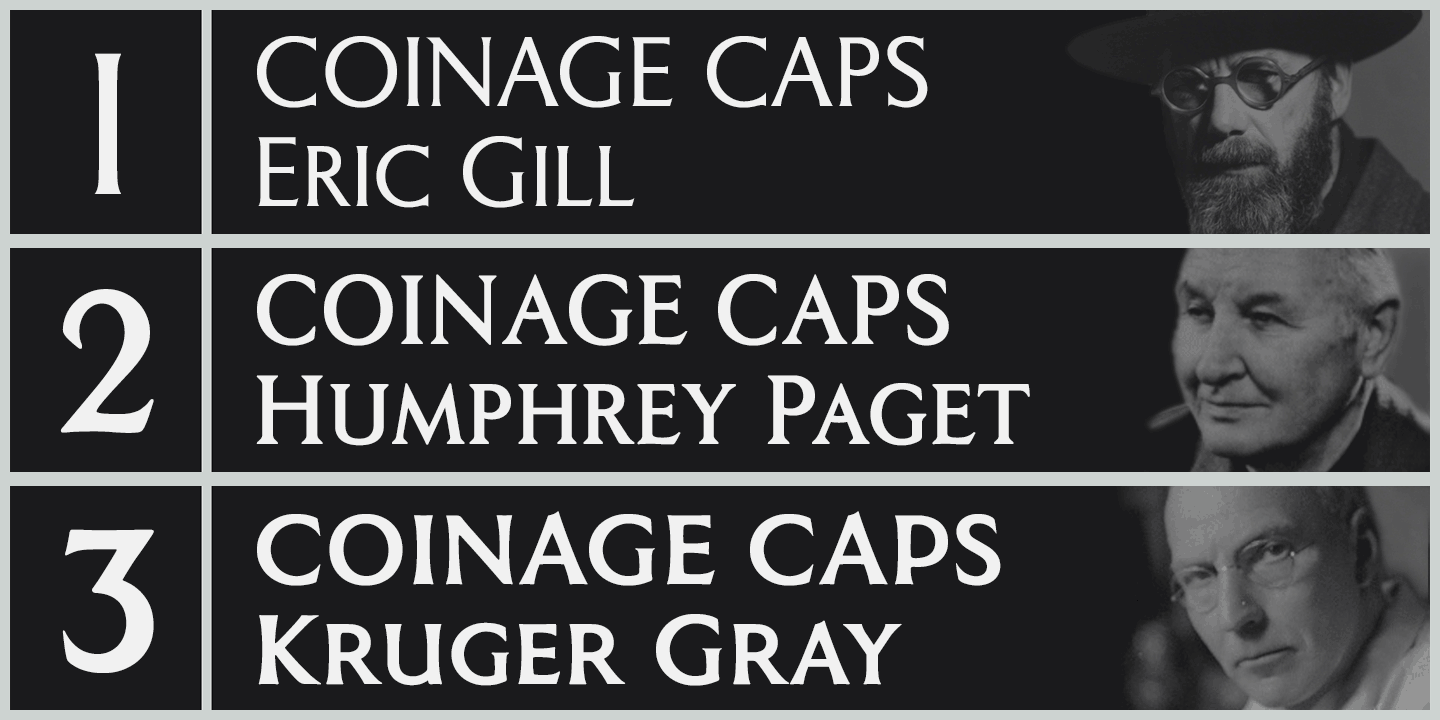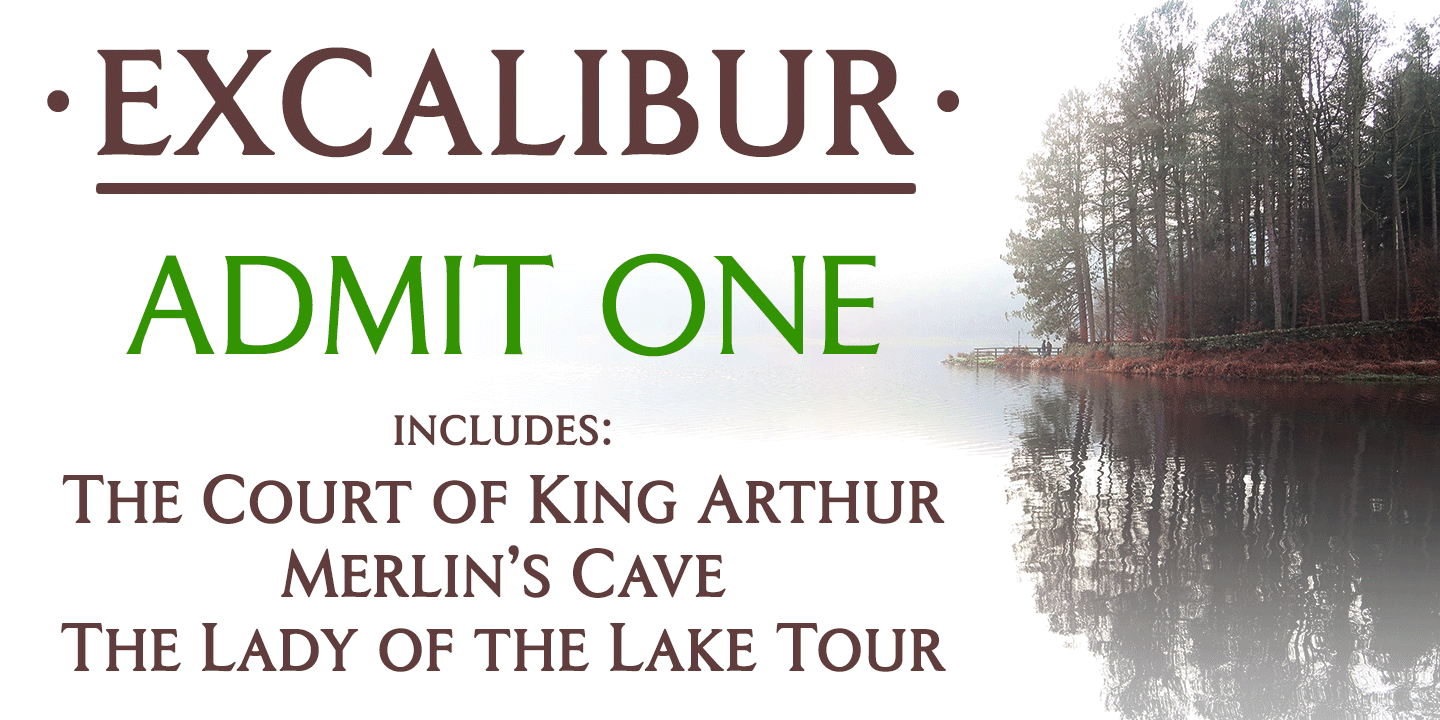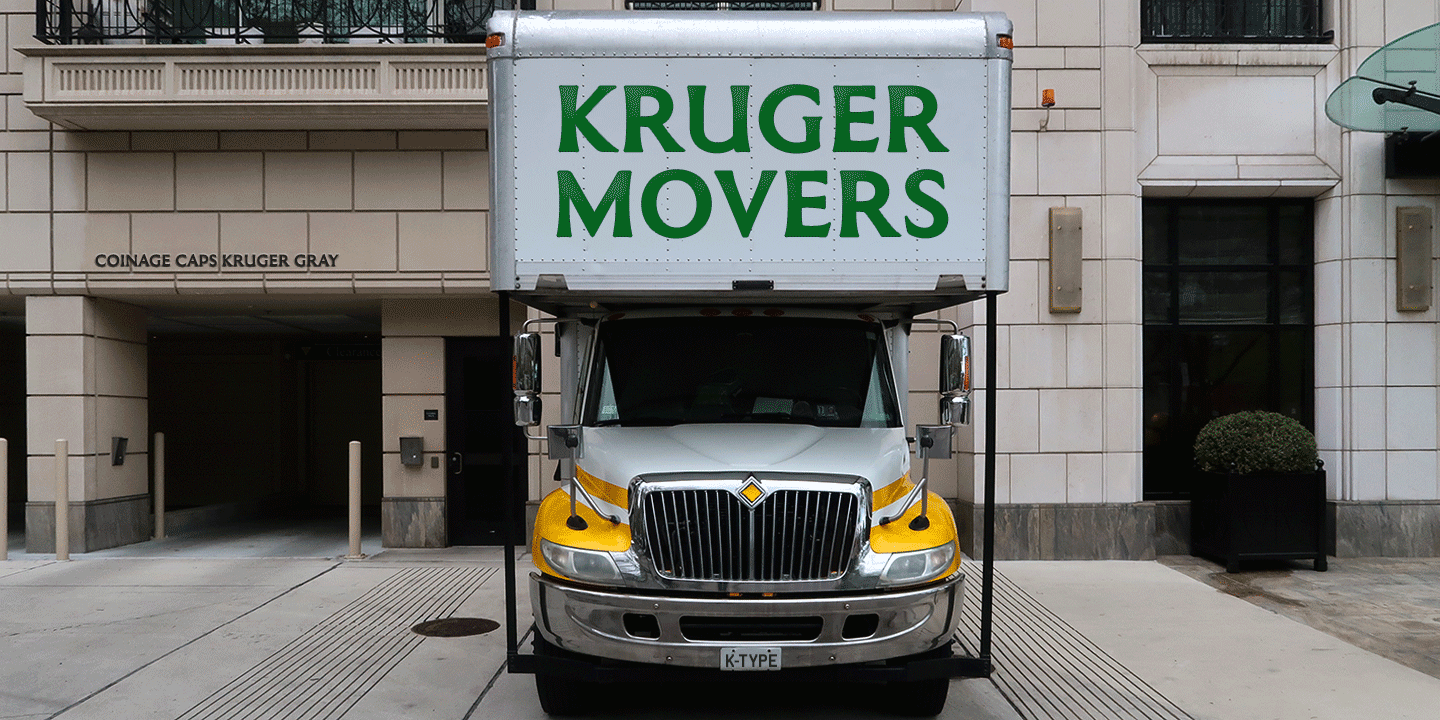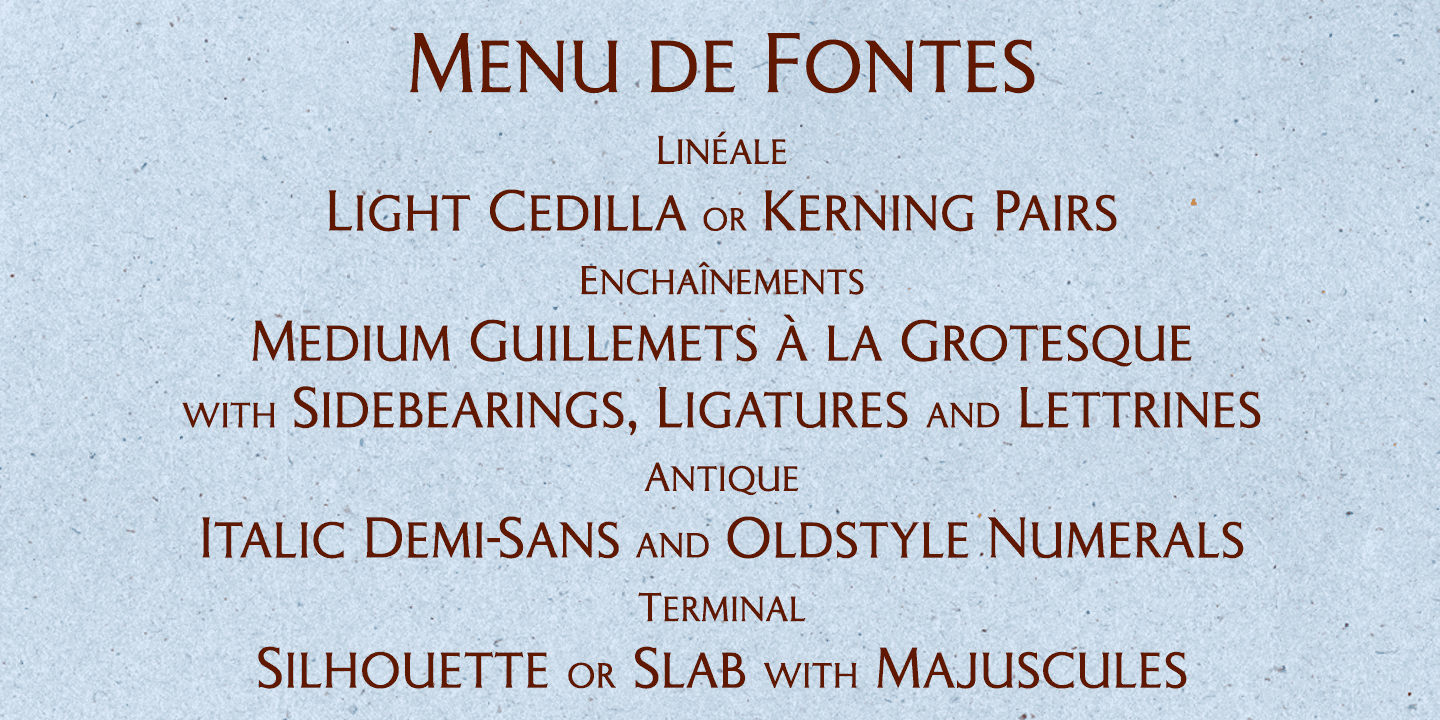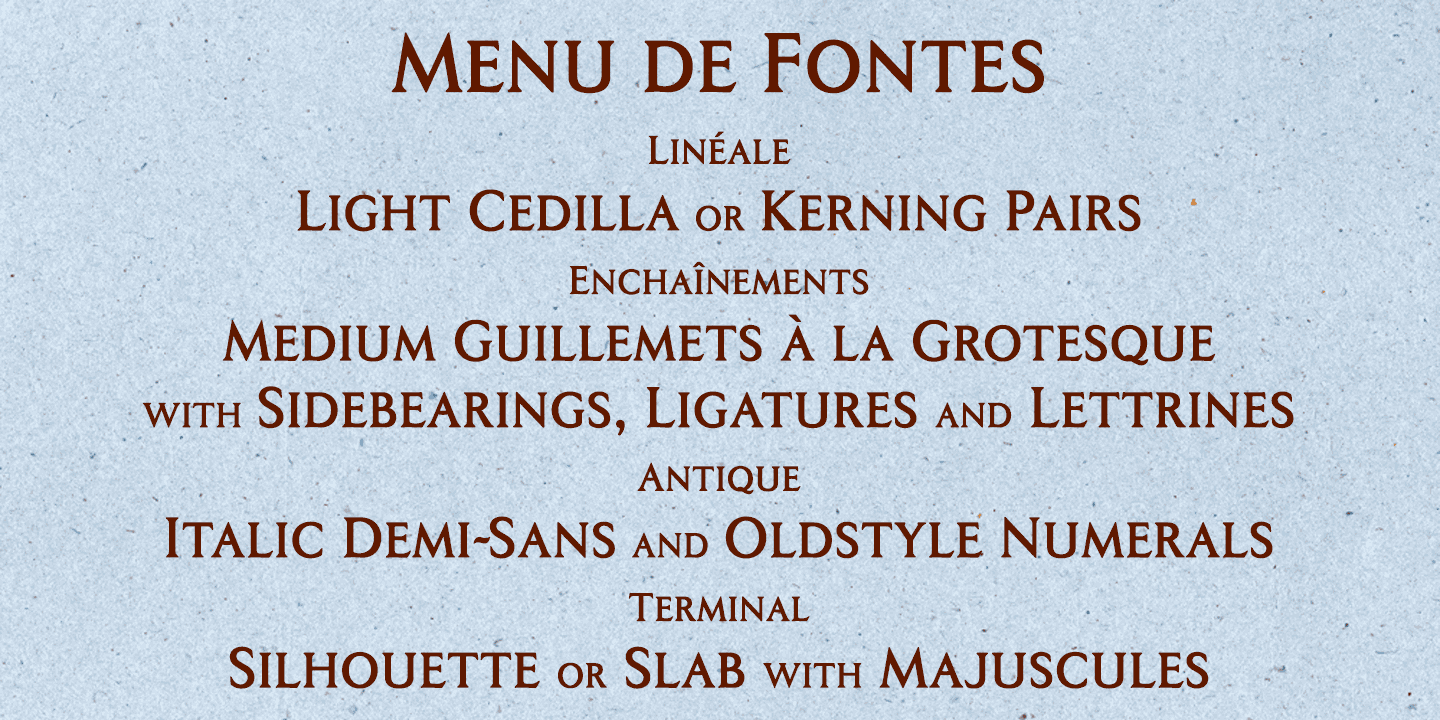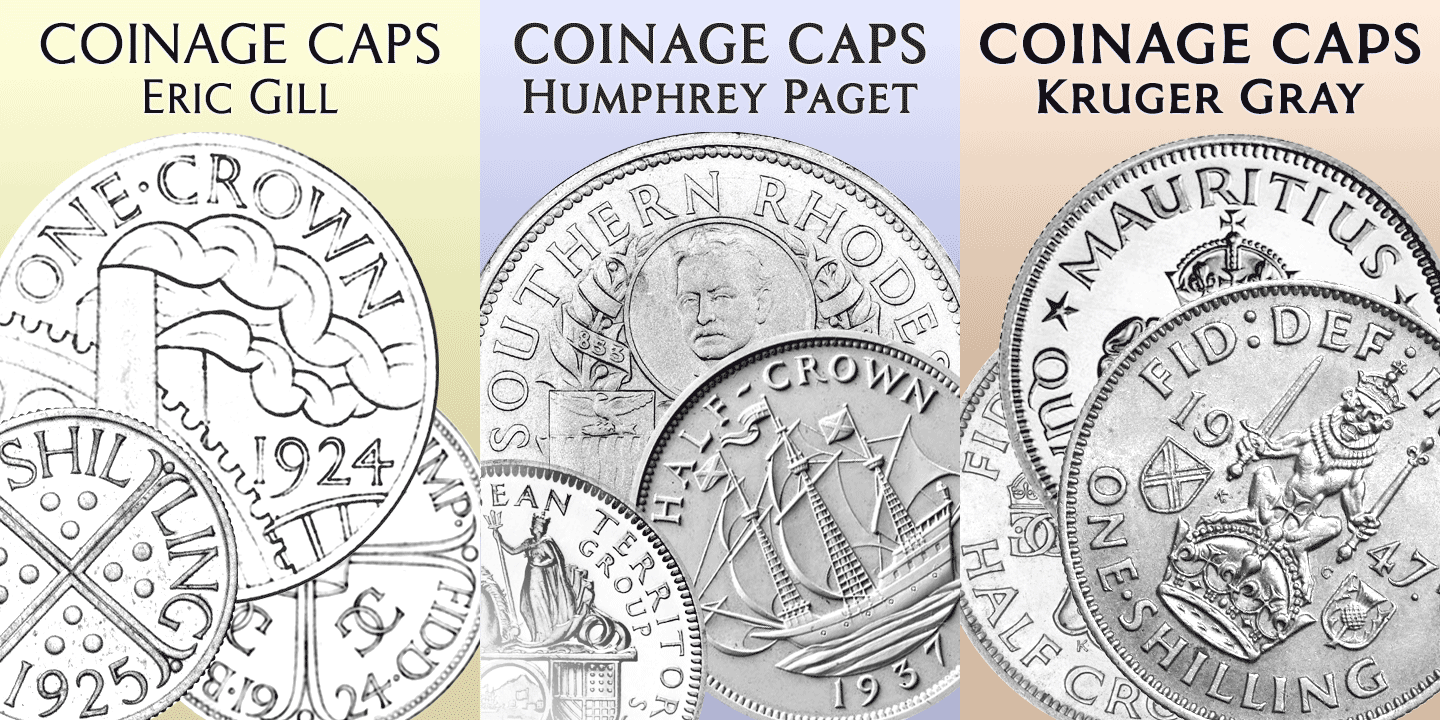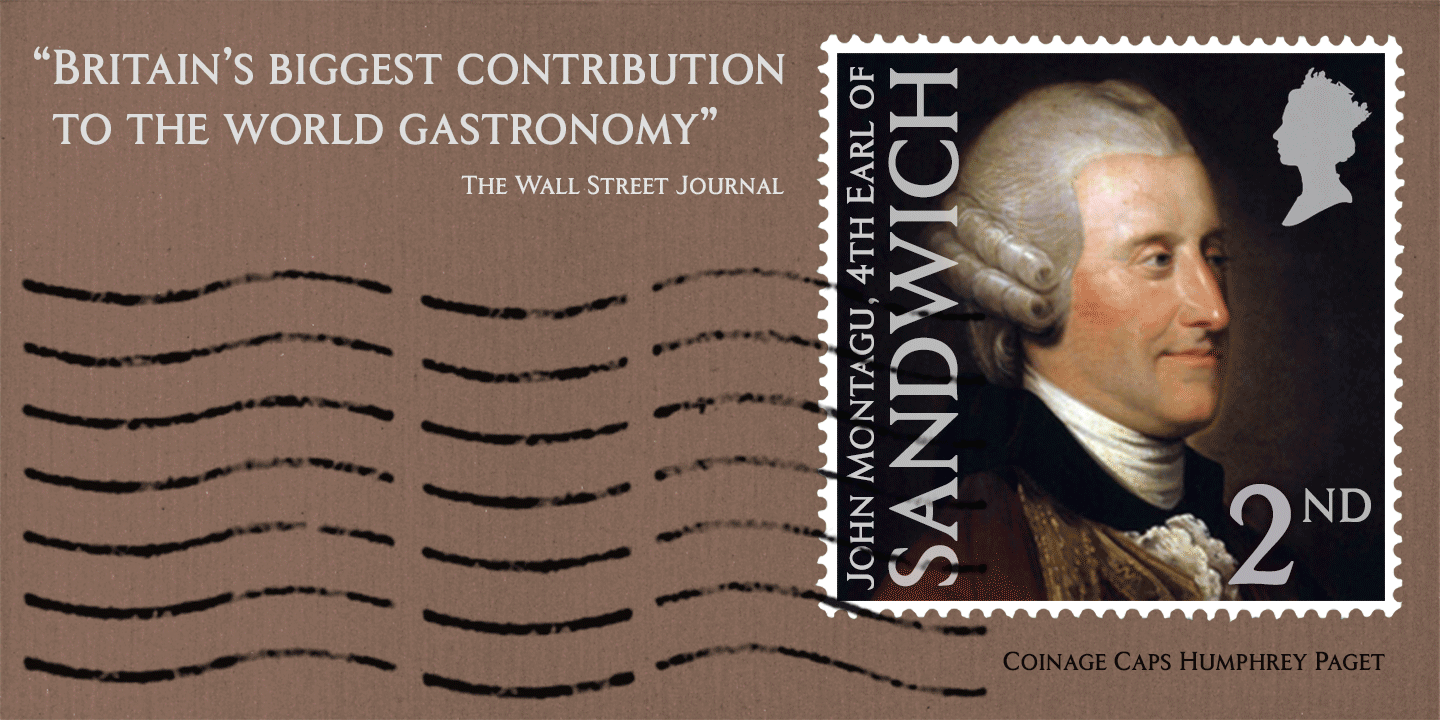
Coinage Caps
About Coinage Caps
Coinage Caps is a trilogy of small caps fonts based on the Roman lettering used for the designs of British coinage. All three fonts are included in the download. • Coinage Caps Eric Gill is a regular weight, spur serif style drawn by Eric Gill…